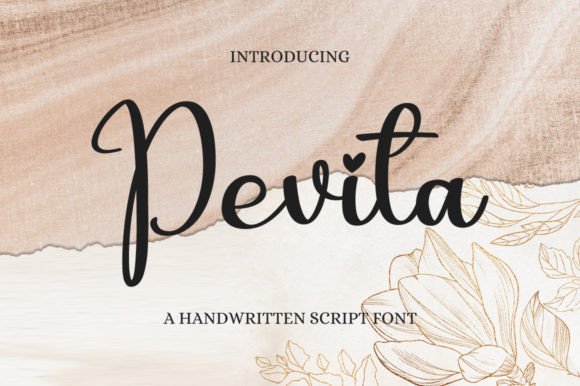
Journey into the realm of romance and elegance with the Pevita Font collection. Created by Nirmala Creative, Pevita is a handwritten font that captures the timeless essence of love and passion. Its enchanting curves and delicate strokes evoke the beauty of handwritten letters, adding a personal touch to your designs.
Unleash your creativity and let Pevita's charm enhance your projects. Whether you're designing logos, branding, wedding invitations, or simply expressing your heartfelt emotions, Pevita will add a touch of sophistication and allure. Its versatility extends beyond the digital realm, making it perfect for hand-lettering and calligraphy projects, allowing you to bring a personal touch to your physical creations as well.
With Pevita, you'll discover a world of possibilities. Its flowing lines and elegant flourishes bring a touch of grace to any project, while its carefully crafted characters ensure readability and clarity. Experience the joy of creating designs that resonate with your audience, leaving a lasting impression that speaks volumes about your brand or personal style.
Transform your words into works of art with Pevita. Let your imagination soar as you explore the endless creative possibilities that await you. Embrace the beauty of handwritten fonts and elevate your designs to new heights of elegance and charm. Pevita is your perfect companion on this creative journey, guiding you towards designs that capture hearts and leave a lasting legacy.
Don't let this opportunity pass you by. Dive into the world of Pevita today and unlock the power of handwritten elegance. Let your designs blossom with the beauty of Pevita and create masterpieces that will captivate your audience and leave them breathless.